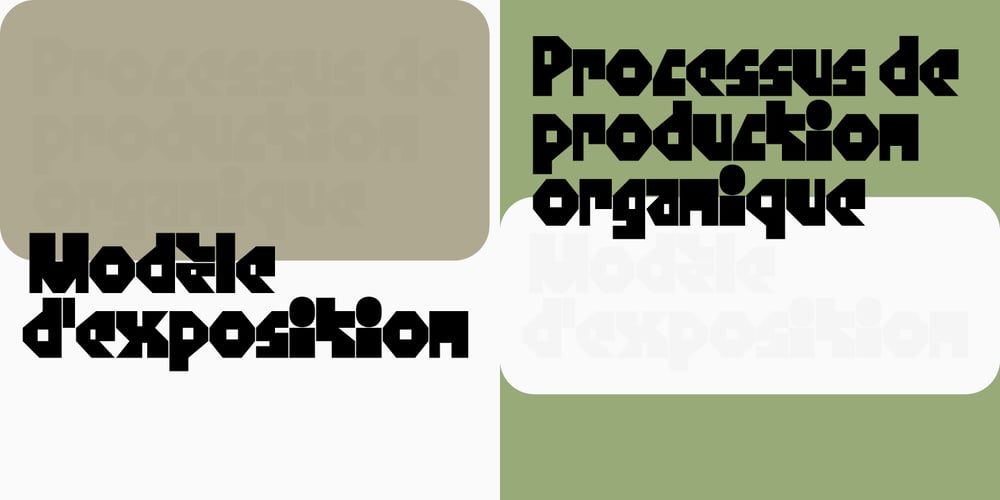
Gikit
Gikit font
Gikit Font Family was designed by Benoît Bodhuin and published by bb-bureau. Gikit contains 2 styles and family package options. Gikit is a very raw and quirky typeface structured according to a strict grid. The design is massive, with very little curve (just the dots and a few punctuation marks). A really stand out characteristic is Gikit’s accents that crush the forms. The type is drawn with 2 styles, for 2 uses: Tittle or Text.